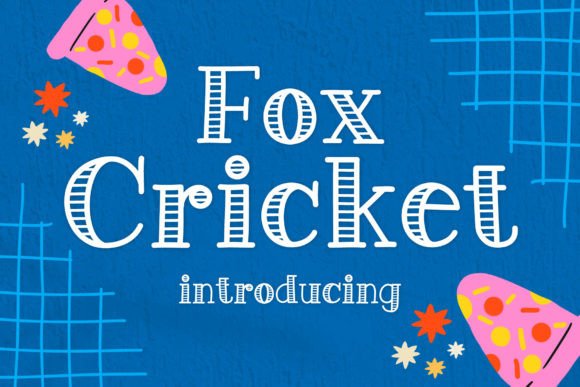
Welcome to the world of Fox Cricket Font, a playful and captivating display font that will add a touch of magic to your creative projects. Dive into a realm where words dance with whimsy, capturing the essence of childhood and imagination. Unleash your creativity with Fox Cricket, the perfect font for kids' parties, enchanting invitations, charming greeting cards, and captivating Halloween themes.
With its playful curves and delightful charm, Fox Cricket captivates the hearts of all who behold it. It's a font that speaks of joy, laughter, and the wonders of the world through the eyes of a child. Embark on an adventure with Fox Cricket, letting your imagination soar as you bring life to your creative endeavors.
Whether you're a seasoned designer or just starting, Fox Cricket will be your trusted companion, guiding you through a world of endless possibilities. Its versatility knows no bounds, allowing you to effortlessly create stunning logos, eye-catching social media posts, vibrant posters, and captivating website designs.
So, seize the opportunity to embrace the magic of Fox Cricket and allow your creativity to flourish like never before. Add this enchanting font to your collection today, and embark on a journey of inspiration and delight. Let Fox Cricket transform your creative visions into enchanting realities.